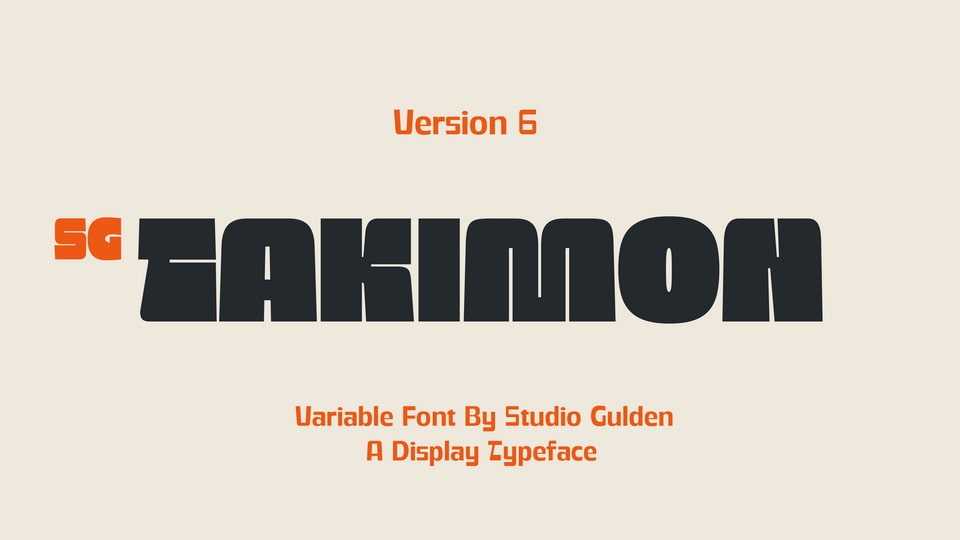
Download SG Takimon font, a display typeface with variable weight. SG Takimon has uppercase and lowercase letters. It’s fun, pop, and playful!
Designer: Studio Gulden